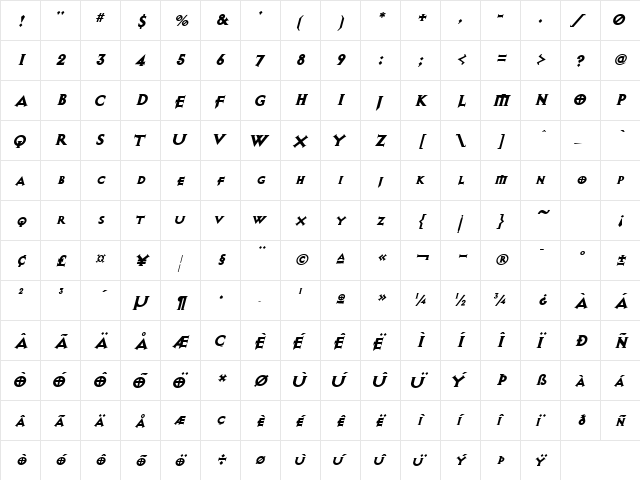
AvalonQuest BlackItalic Font Preview
AvalonQuest BlackItalic
Design Context for AvalonQuest Typeface
AvalonQuest offers clean, dependable letterforms without strong stylistic allegiance, making it a practical choice for designers who need flexibility. Its italic angle brings a sense of urgency and motion to the letterforms.
Pro Tip: Use AvalonQuest for emphasis, pull quotes, and subheadings where its slanted energy can add rhythm to the layout.